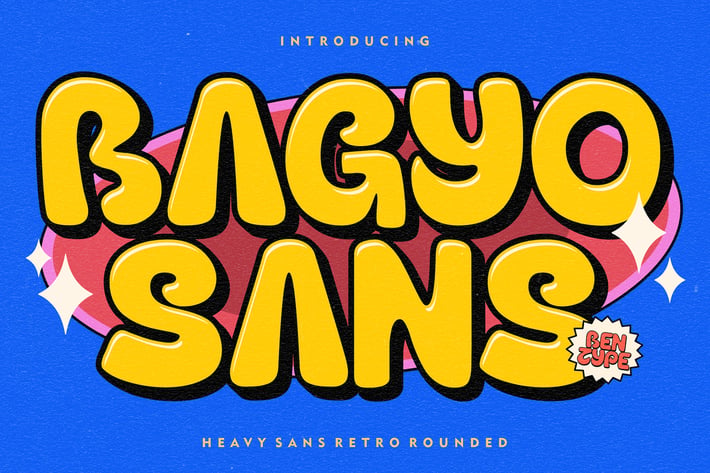
Bagyo Sans - Heavy Sans Retro Typeface
Bagyo Sans is a sans-serif typeface with a heavy touch. This font is perfect for branding, titling, headline, and more.
This typeface adds a bold and rounded style to your artworks. a font with a big fat personality that will make all your artistic creations come alive with style and weight.
Allcaps Character